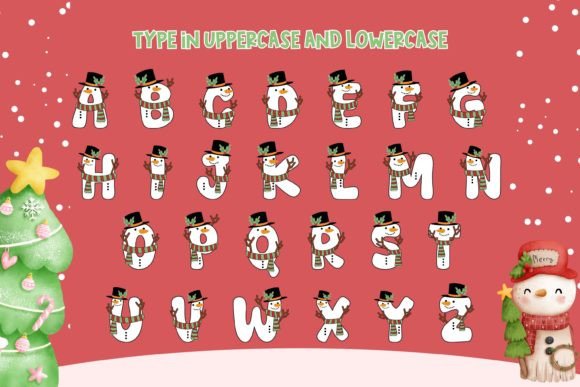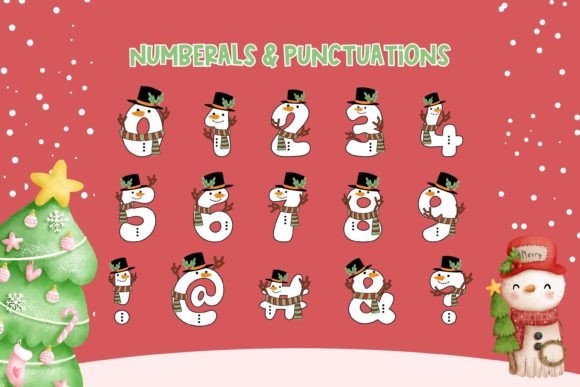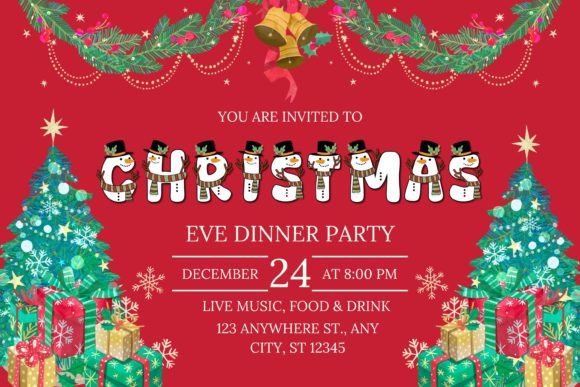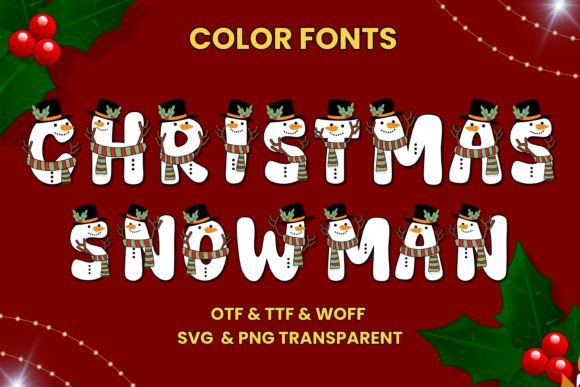
Introducing Christmas Snowman Font: A Playful and Enchanting Addition to Your Holiday Designs
It’s the most wonderful time of the year, and what better way to get into the holiday spirit than with a festive font that’s sure to bring a smile to everyone’s face? Look no further than Christmas Snowman Font, a vibrant and playful color font that’s perfect for adding a touch of magic to your Christmas-themed designs.
A Font that’s Full of Holiday Cheer
Christmas Snowman Font is a delightful addition to any design project, whether you’re creating t-shirt designs, digital imprints, craft creations, decorative cards, or extensive projects. Its captivating character effortlessly melds with a variety of design styles, making it the perfect choice for designers and crafters looking to add some holiday flair to their work.
Compatibility is Key
One of the best things about Christmas Snowman Font is its versatility when it comes to compatibility. The black version of this font is compatible with Cricut Design Space and other cutting machines, making it a great choice for crafters who love to work with vinyl, iron-on, and other materials. However, it’s essential to note that the color version of this font is only compatible with certain design programs, including PhotoShop, Illustrator, Silhouette, and Inkscape.
With Christmas Snowman Font, the design possibilities are endless. Imagine creating adorable t-shirt designs featuring a cheerful snowman, complete with a top hat and scarf. Or, picture a beautiful digital imprint with a festive holiday message, all in the vibrant colors of the season. You could even use this font to create stunning craft projects, such as handmade cards, gift tags, or decorations for your home.
Tips and Tricks for Using Christmas Snowman Font
To get the most out of Christmas Snowman Font, here are a few tips and tricks to keep in mind:
- Experiment with different colors and combinations to find the perfect look for your design.
- Use the black version of the font for cutting machine projects, and the color version for digital designs.
- Don’t be afraid to get creative and try out new and unique design ideas.
- Vivid and playful color font
- Perfect for Christmas-themed designs